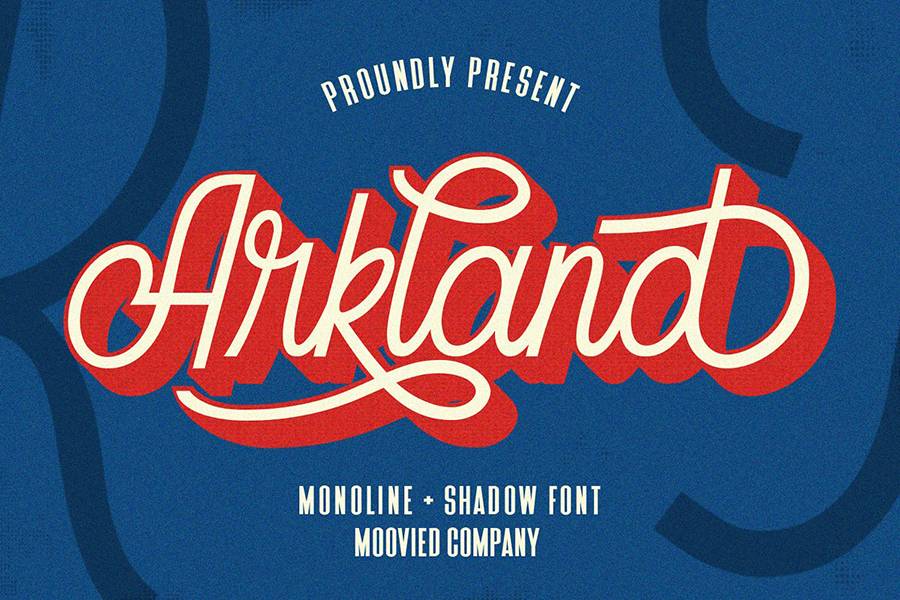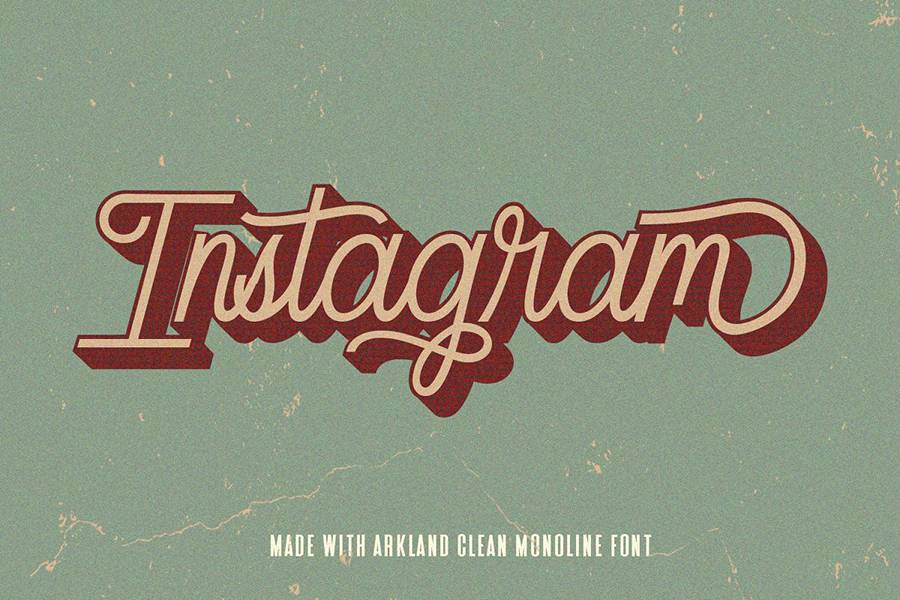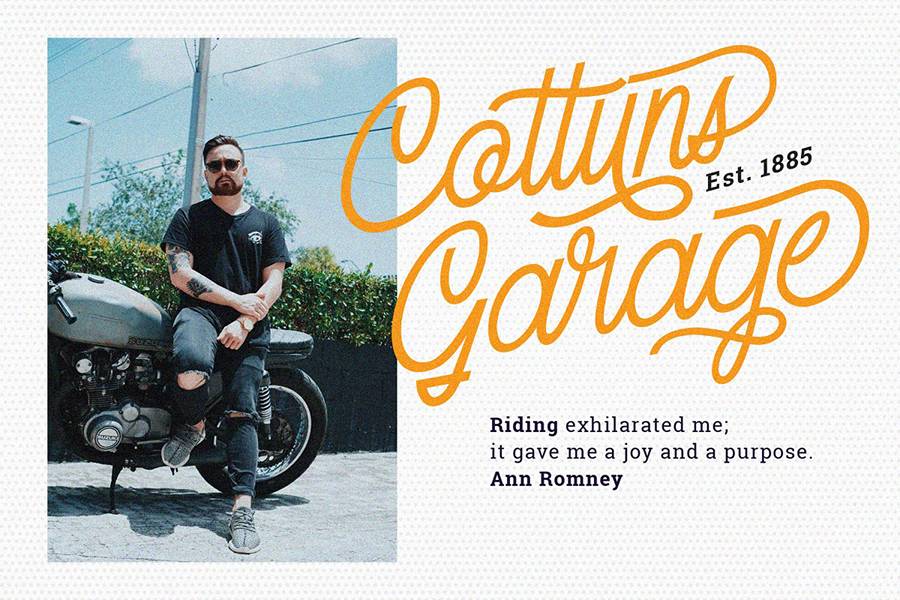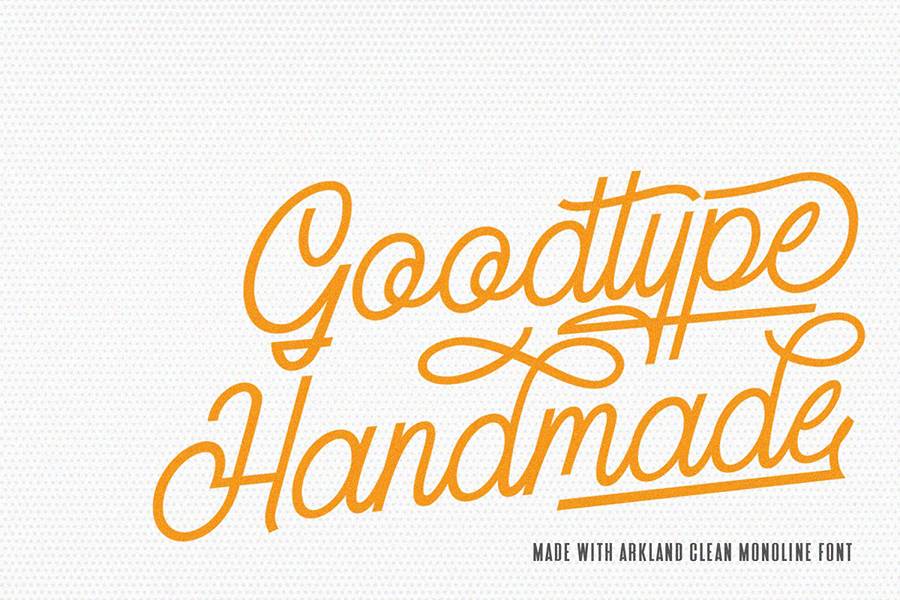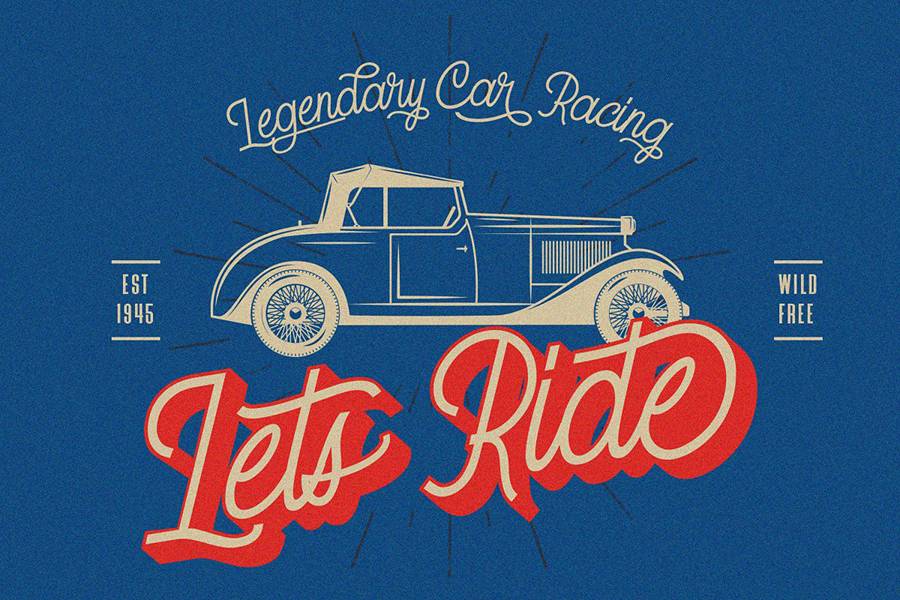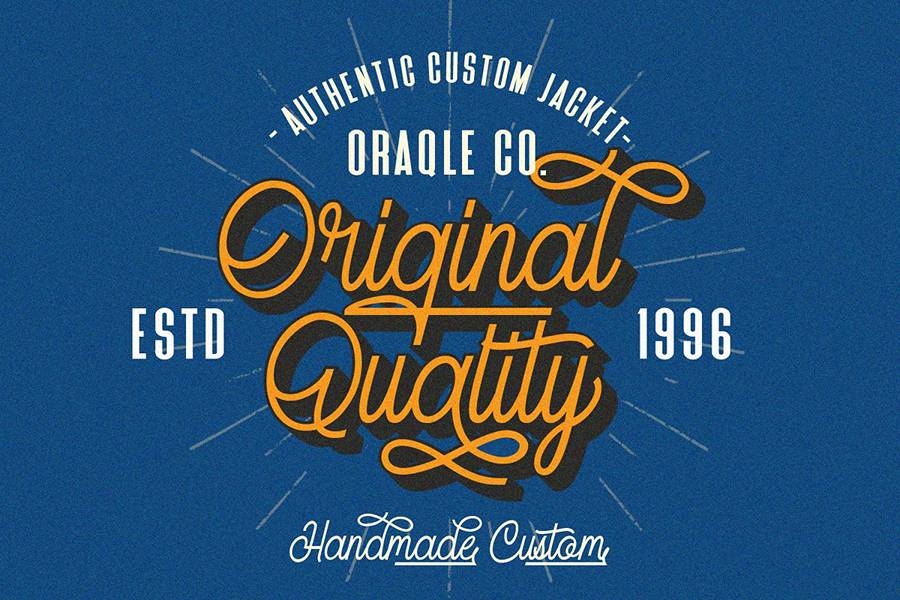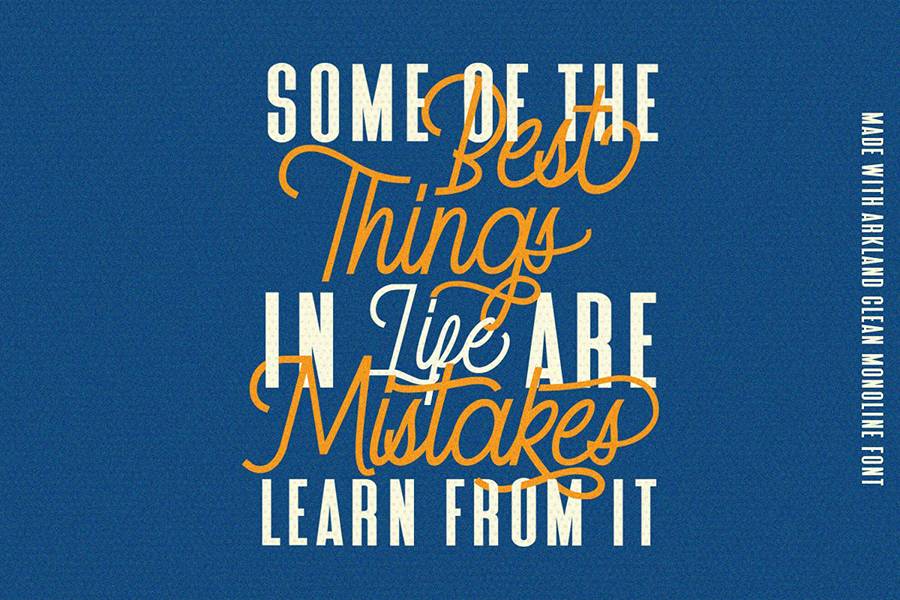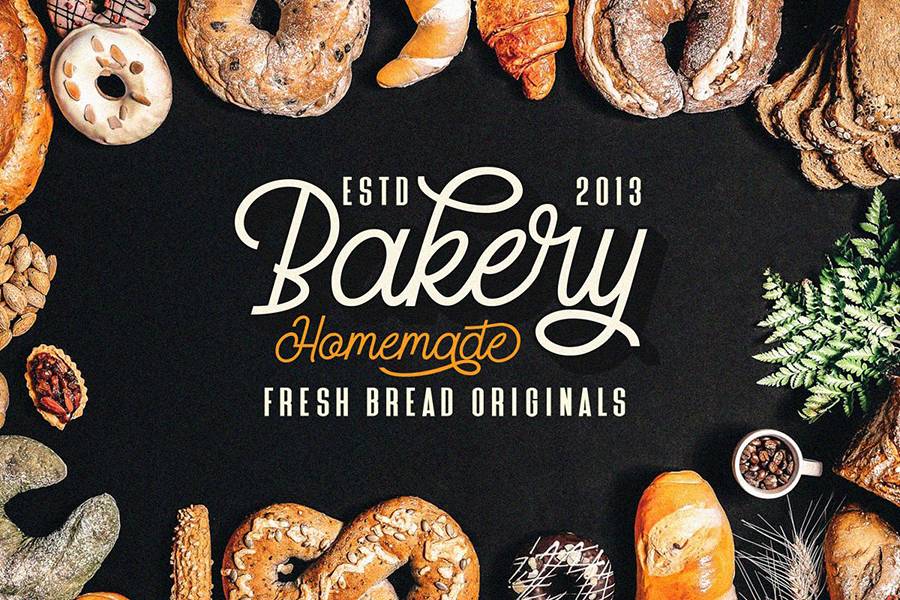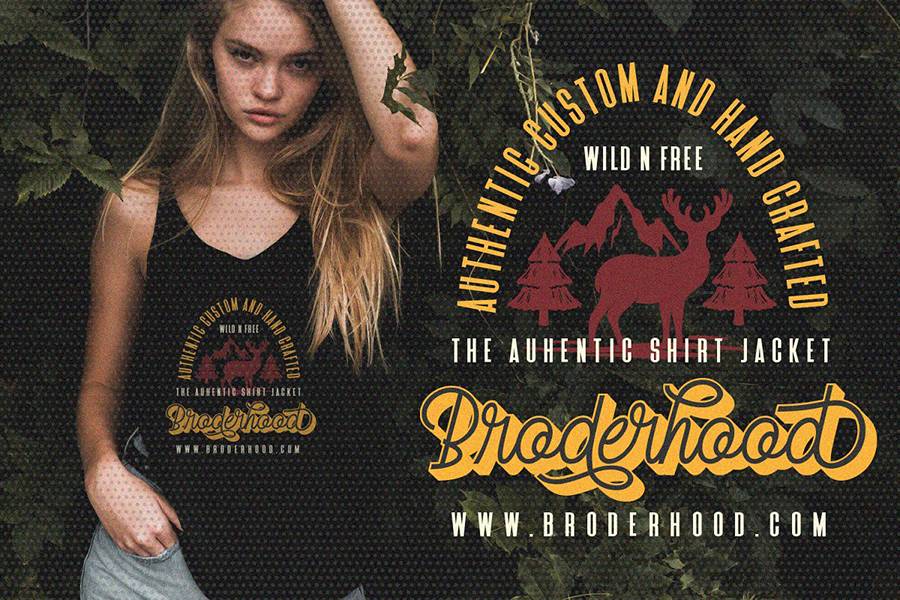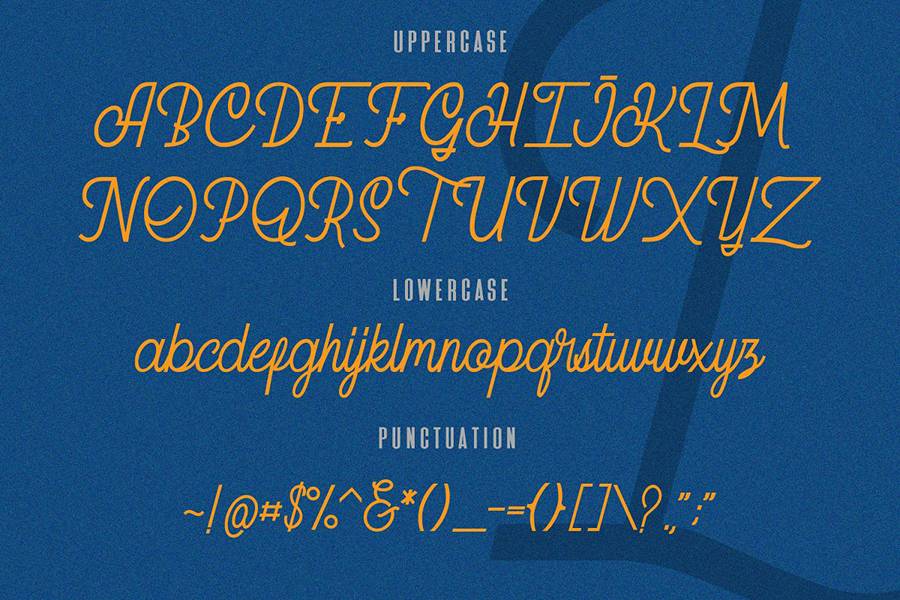
Arkland Monoline Script Demo is a sleek and elegant monoline script font with a refined, handwritten feel. Its consistent thin strokes and smooth connections create a modern yet classic look, making it perfect for branding, invitations, and stylish editorial designs that seek a touch of sophistication. This font works well in settings where a graceful, delicate aesthetic is desired without sacrificing readability.
Arkland Monoline Script Demo Font
About Arkland Monoline Script Demo Font
| Font family | Arkland Monoline Script Demo Font |
| Designer | Egi Ahmad Mufid |